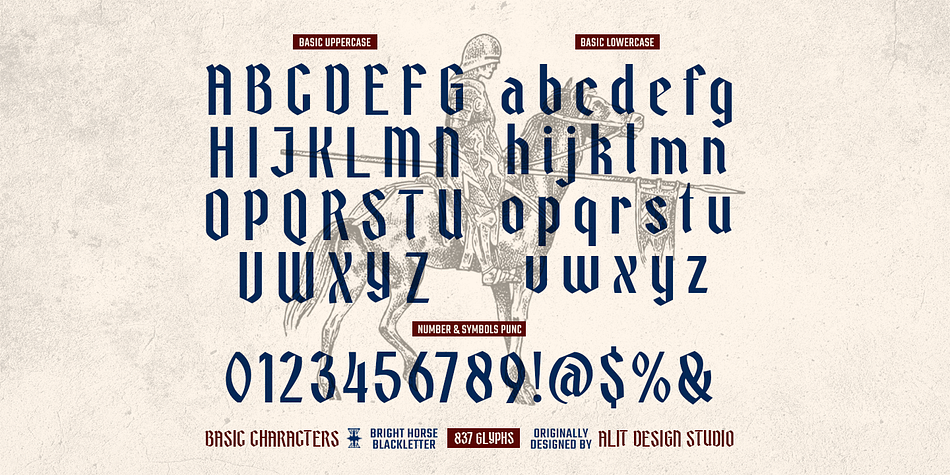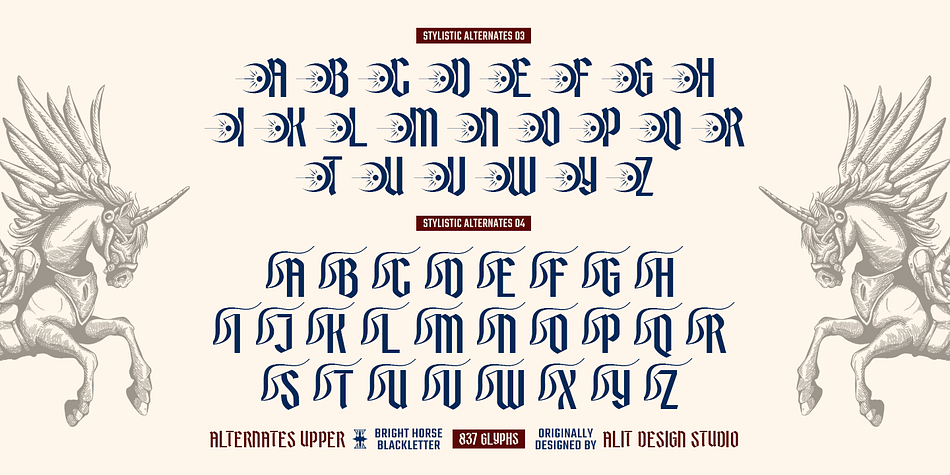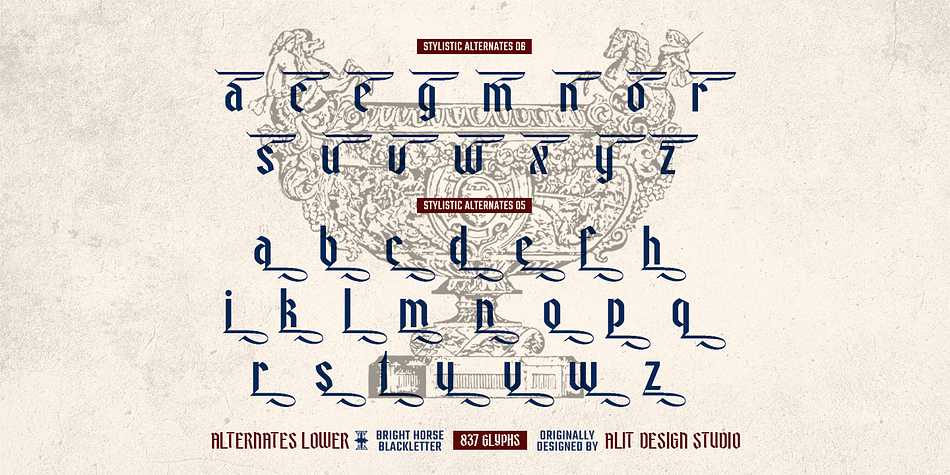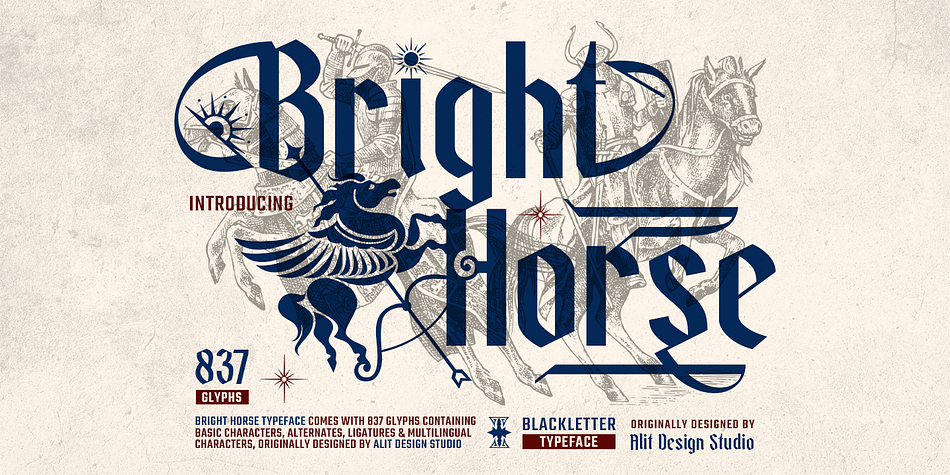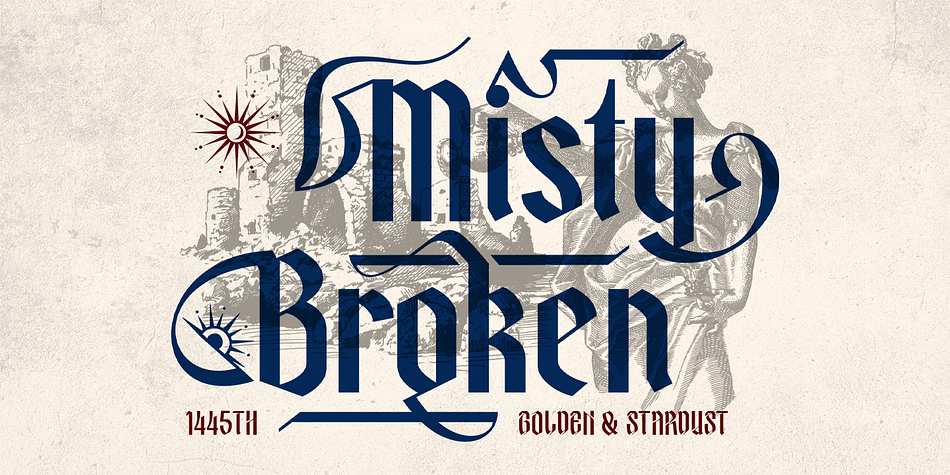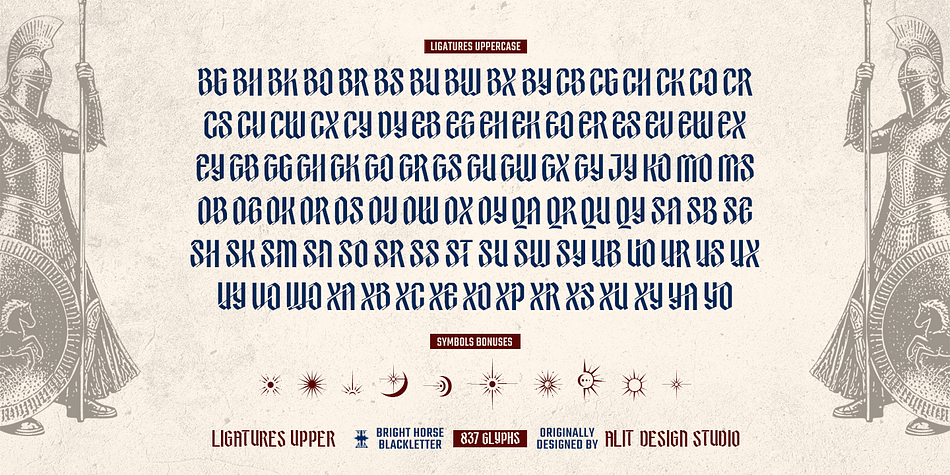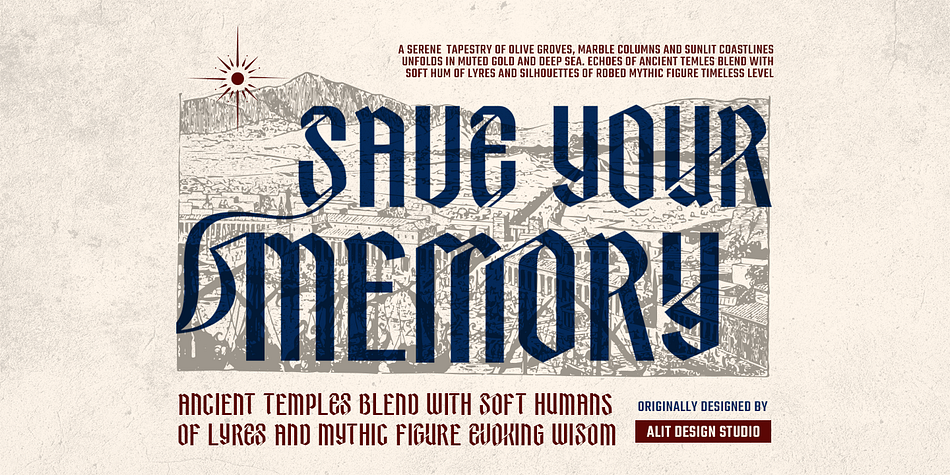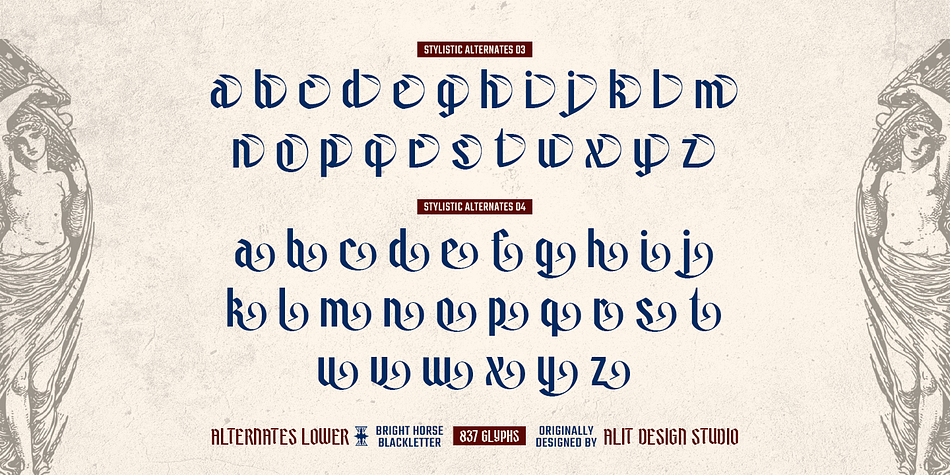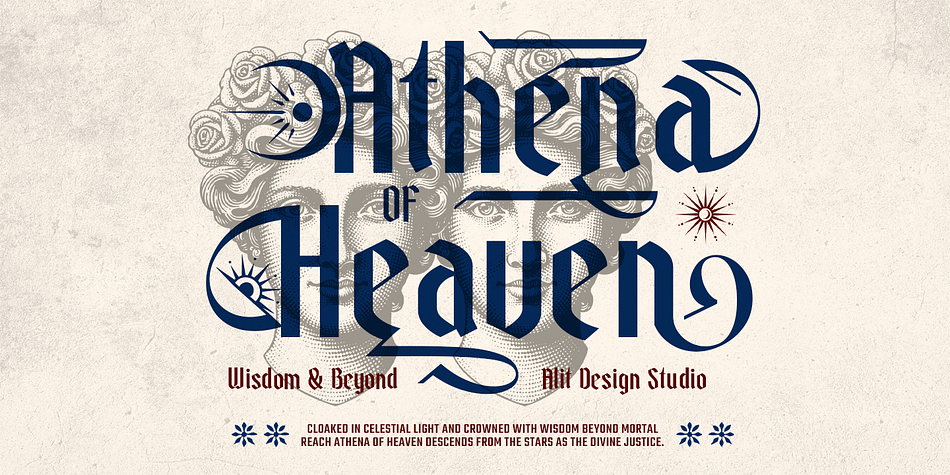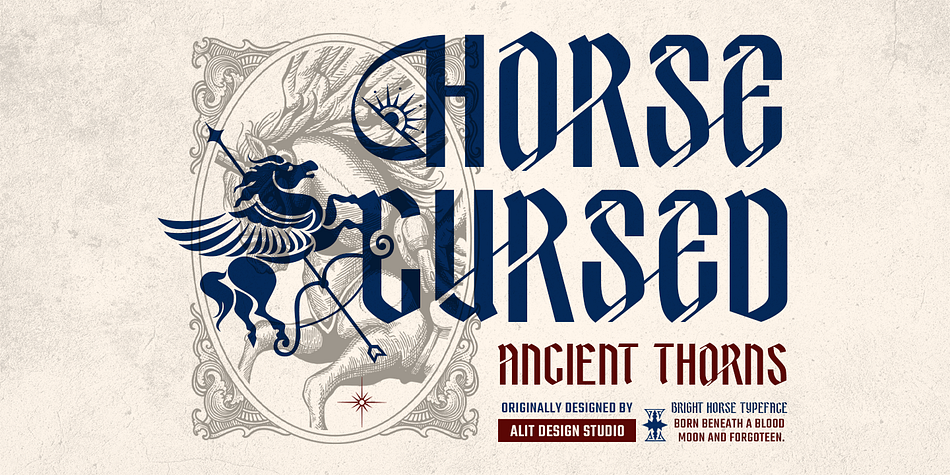
Bright Horse
Designed by Alit Suarnegara, Bright Horse is a blackletter font family published by Alit Design.
Bright Horse – A Modern Blackletter Typeface with Bold Spirit
Bright Horse is a striking typeface that masterfully fuses the timeless elegance of traditional blackletter with the commanding presence of bold sans-serif influences. Designed by Alit Design Studio, this font reimagines medieval aesthetics through a modern lens, offering a unique blend of historical charm and contemporary edge.
With 837 glyphs, Bright Horse delivers a comprehensive character set that includes:
Basic characters
Alternates & stylistic sets
Uppercase ligatures
Multilingual support
Bonus symbols inspired by celestial and mystical motifs
This typeface offers multiple stylistic alternates, from intricate blackletter strokes to futuristic, eye-catching serifs. Perfect for logos, branding, editorial designs, tattoo art, posters, and packaging, Bright Horse creates an atmosphere of sacred nostalgia and bold cultural storytelling.
Key Features:
837 glyphs packed with creativity
Extensive alternates & ligatures for endless customization
Multilingual support
Bonus symbols including stars, suns, moons, and mystic emblems
Ideal for projects seeking a harmonic fusion of tradition and rebellion
Whether you’re evoking the distant echoes of medieval knights or the avant-garde energy of modern design, Bright Horse gallops confidently between eras, bringing a bold voice to your creative work.